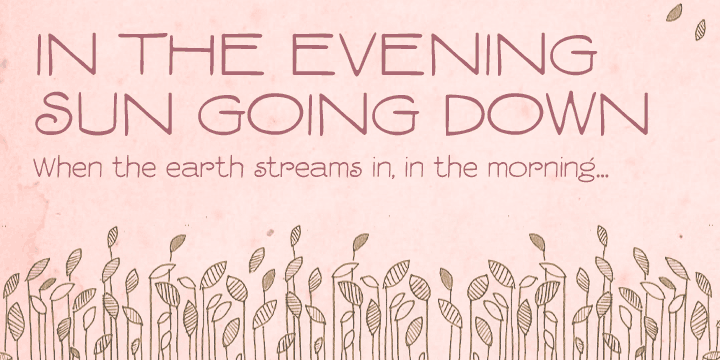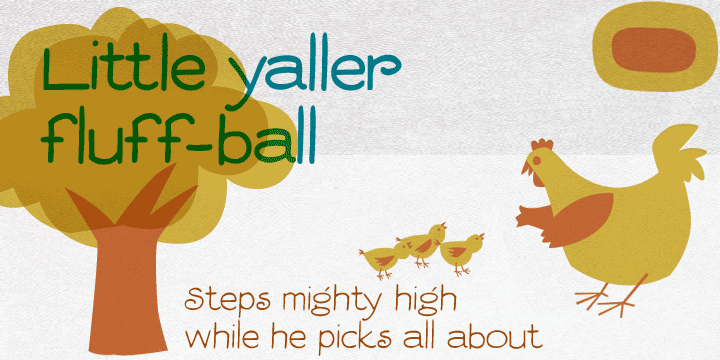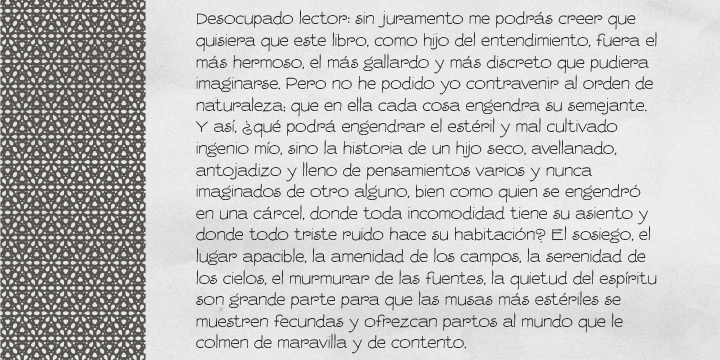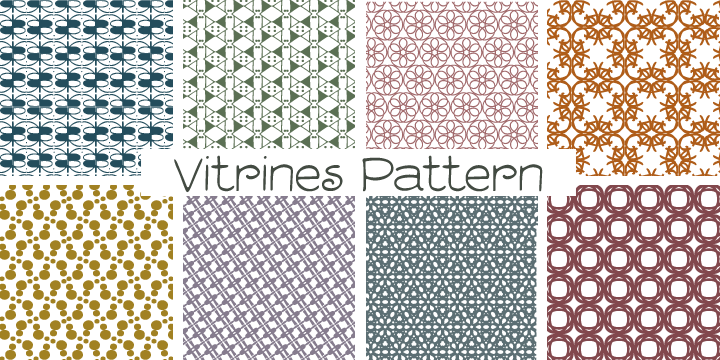
Vitrines is a dingbat and hand drawn font family. This typeface has three styles and was published by PintassilgoPrints.
Vitrines is a digital and extended version of a charming alphabet featured in a 1913 book devoted to window signs and show cards.
This version was carefully developed to preserve the original hand lettered look and feel. It includes a bold weight and a set of pattern tiles to adorn your compositions.
A note about the pattern font: in order to create even patterns, be sure to set the line spacing the same size as the font and set no spaces before or after paragraphs.